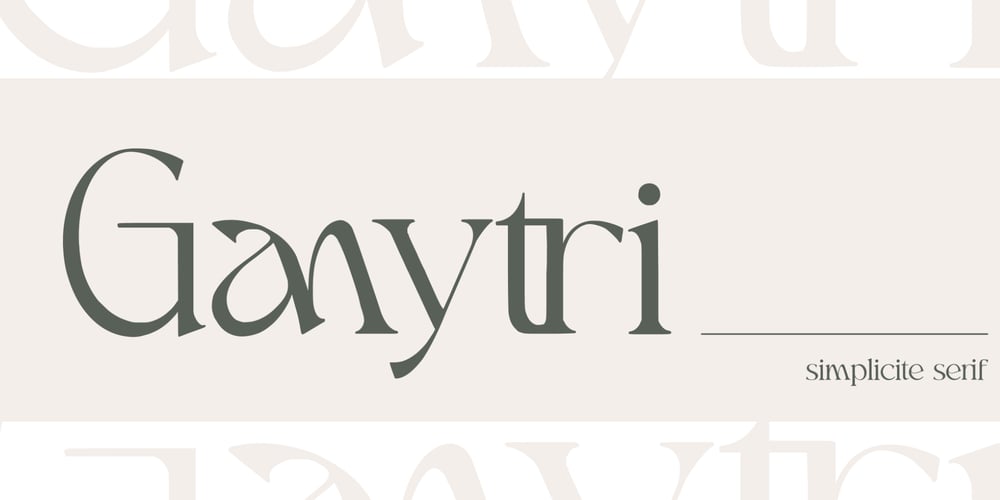
Ganytri
Ganytri font
Ganytri Font Family was designed by Dicky Fuadi, Cherly Nugroho and published by Ethylene. Ganytri contains 1 styles and family package options. Introducing Ganytri, a contemporary hand-fashioned font that boasts an alluring stylish curvature. Expertly finished with a wealth of ligatures, this typeface adds a touch of unique flair to your creative projects. Exceptionally versatile, Ganytri proves a perfect match for an expansive variety of design essentials. Whether you’re designing gripping posters, captivating book and magazine covers, eye-catching packaging labels, trendy merchandise, compelling brochures, engaging YouTube thumbnails, vibrant social media posts, classy logos or stunning stationery; this typeface is ideally suited to bring your creative vision to life.